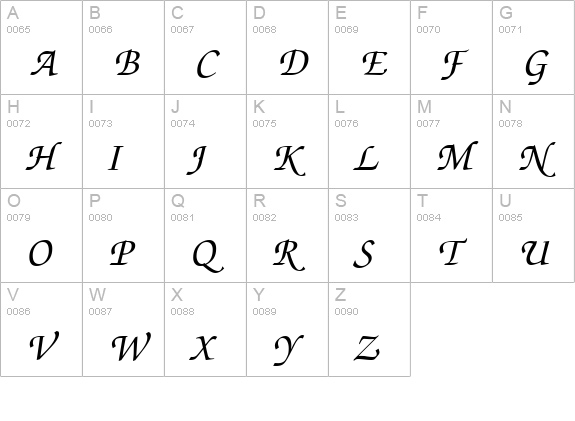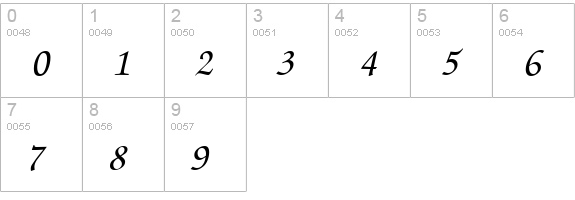
ZabriskieScript-BoldItalic is a stunning and elegant handwritten font that exudes sophistication and charm. Its bold and italic design adds a touch of flair to any project, making it perfect for invitations, greeting cards, logos, and more. This font is free to download at FontsMarket.com, where you can easily access this beautiful typeface for all your creative needs. With its unique and stylish look, ZabriskieScript-BoldItalic will surely make a statement and elevate your designs to the next level. Don't miss out on this fantastic opportunity to enhance your projects with this stunning font. Download it now and let your creativity shine!